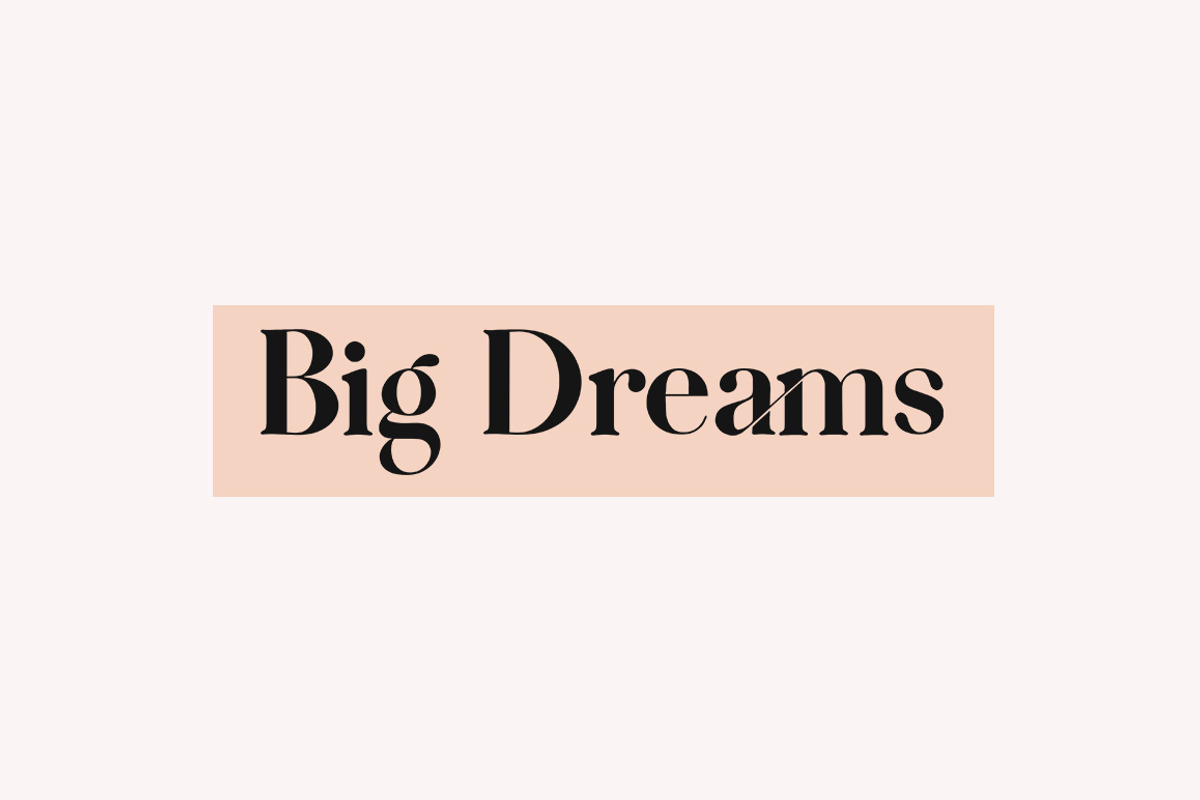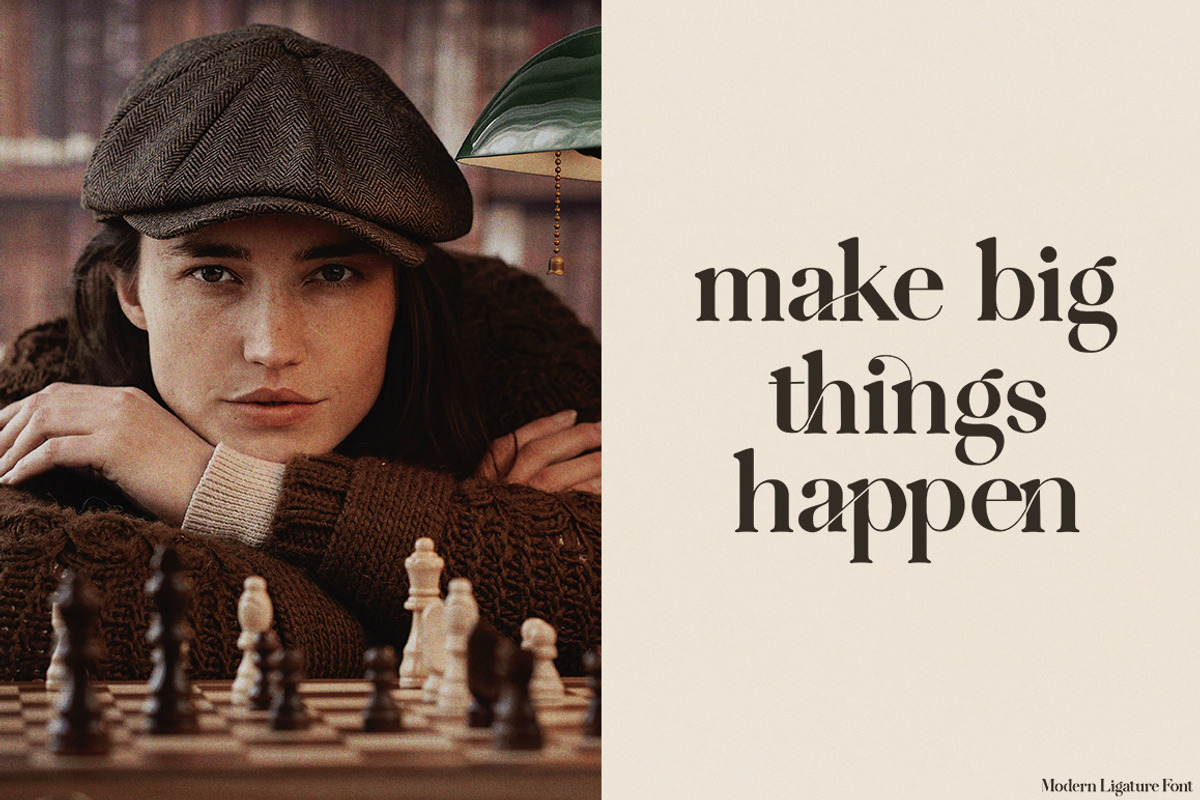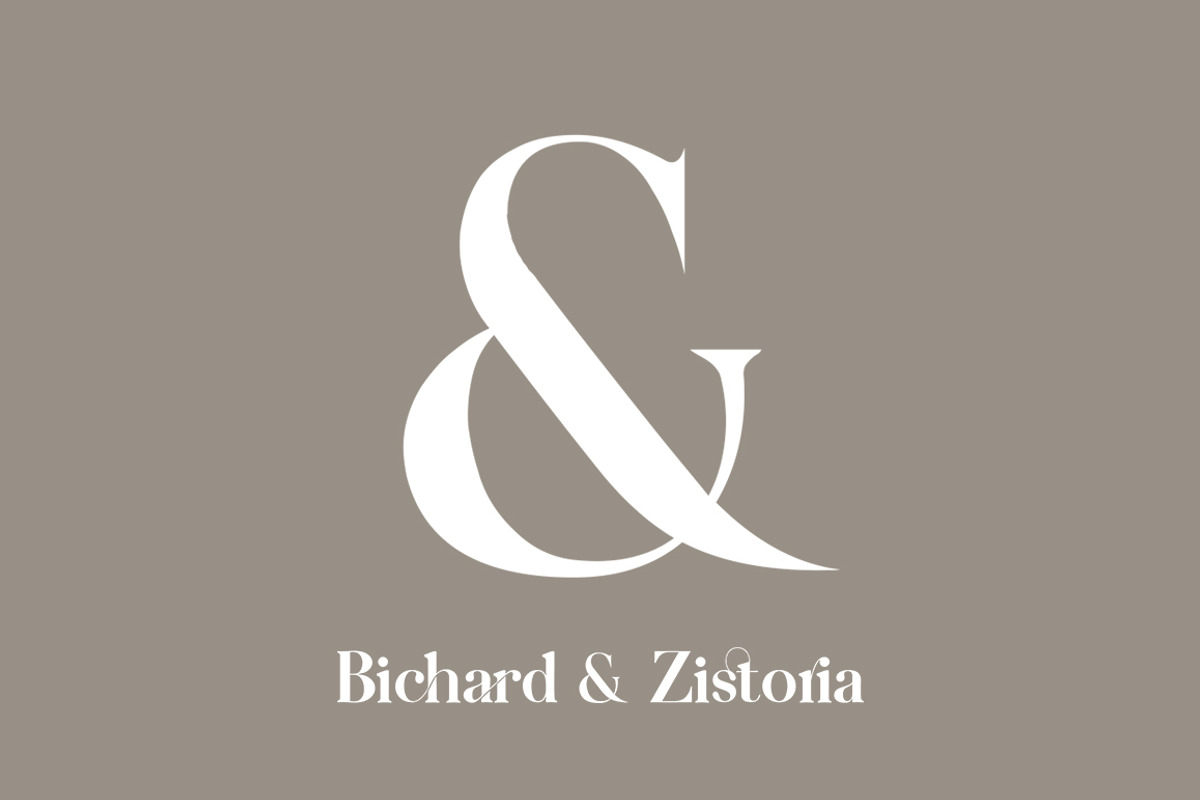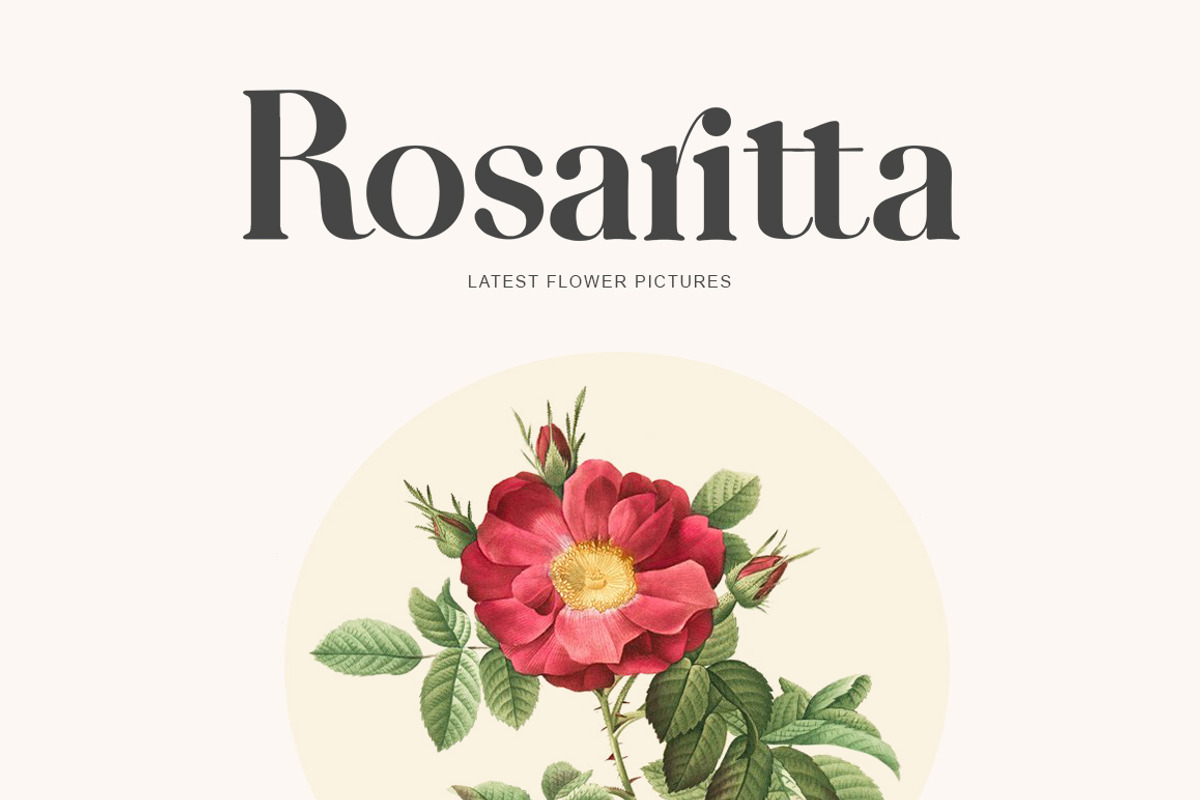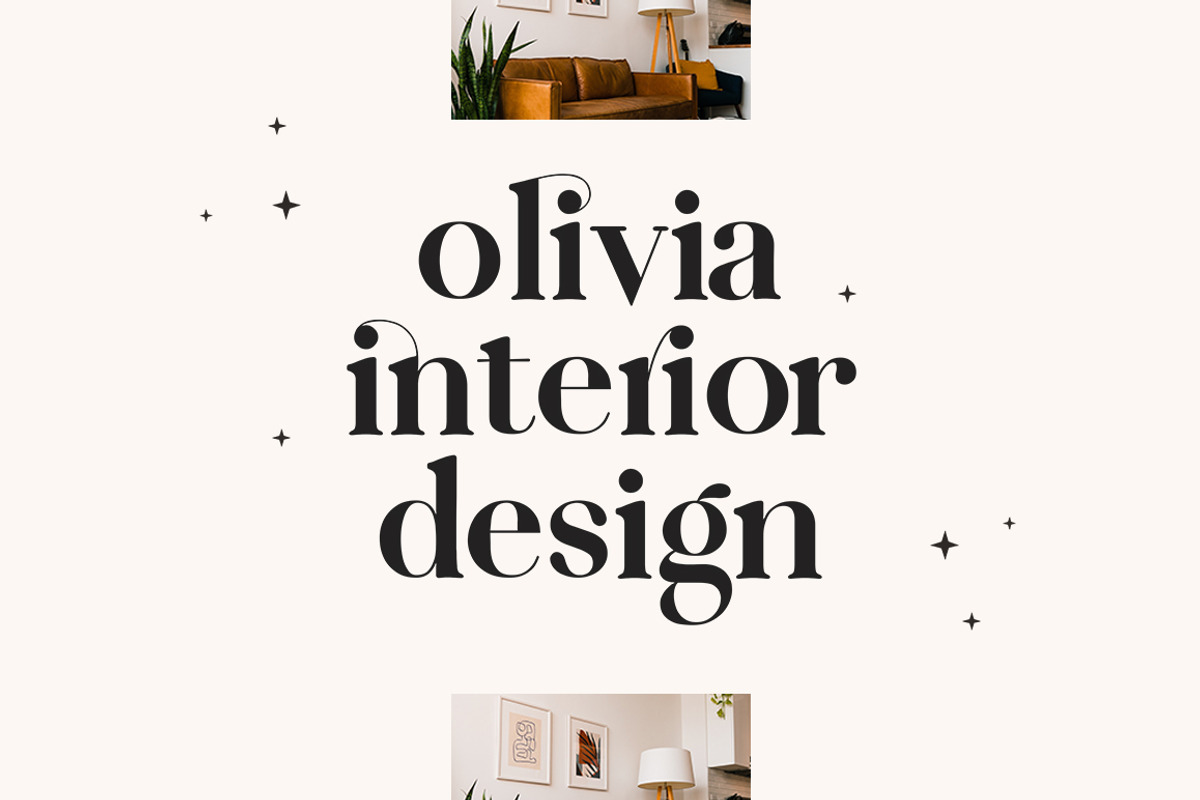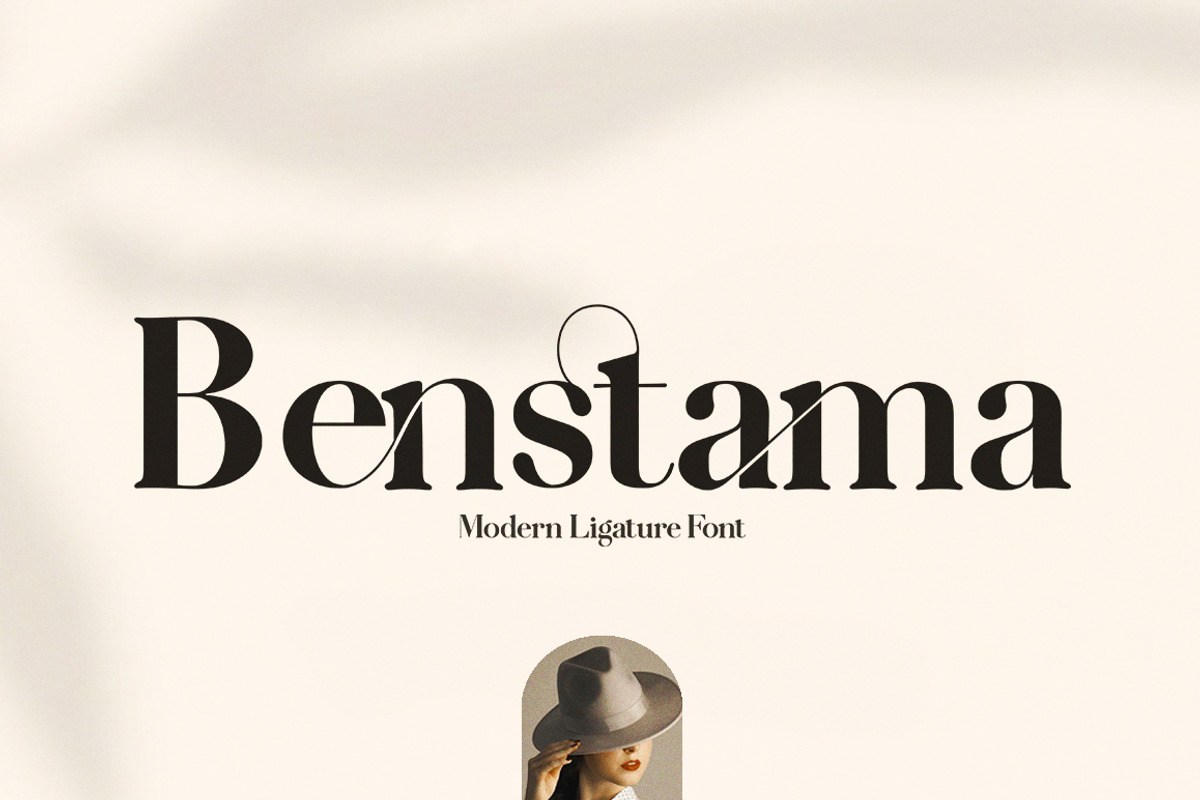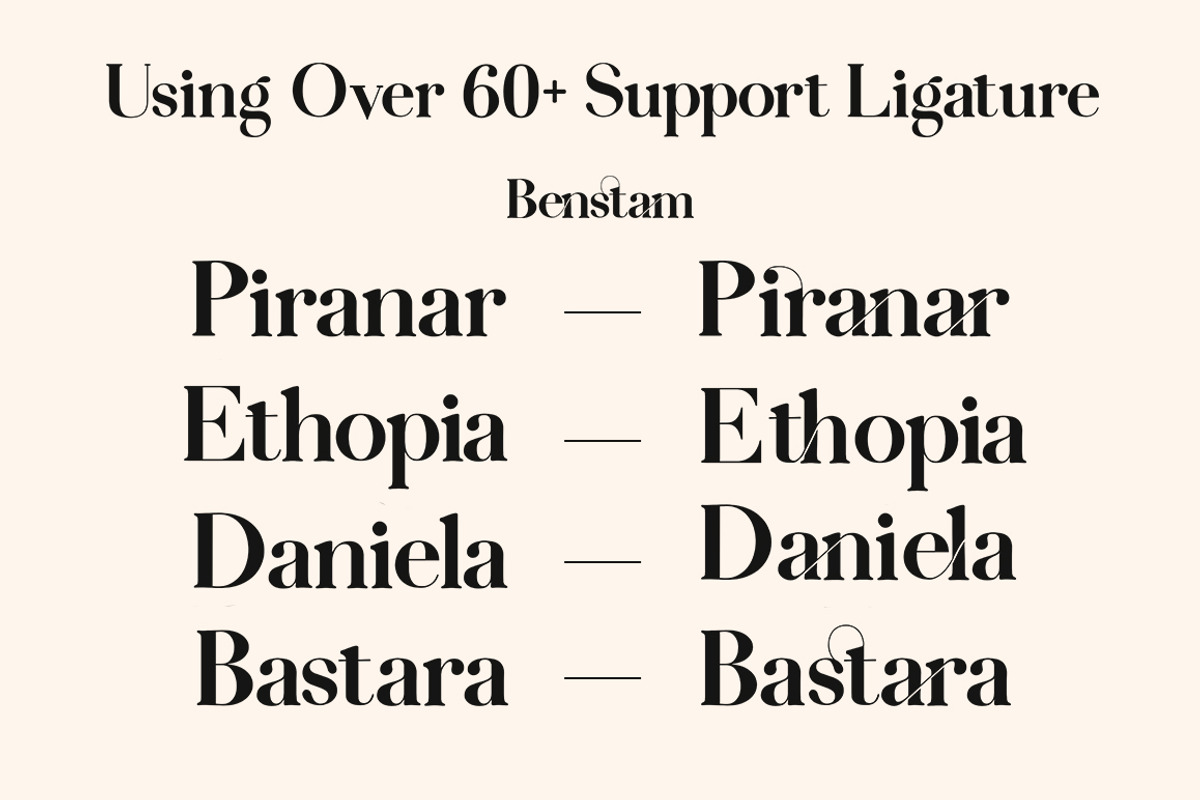
Benstama | Ligatures Font
Benstama - Modern Ligature
Benstama is a stylish font that is chic, elegant and unique font that uses ligatures to smoothly link letters. Perfect for branding, logos, invitation, masterheads and more.